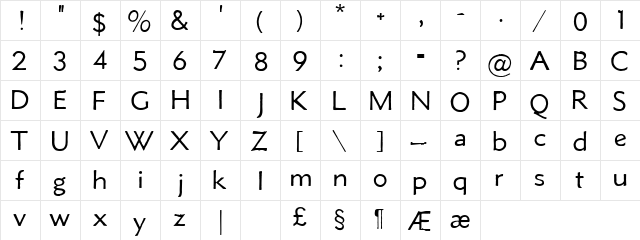
Metro Lite Alt HPLHS
Design Context for Metro Lite Alt Typeface
Metro Lite Alt takes a measured approach to typography — its balanced proportions and neutral character make it a reliable workhorse for both digital and print work.